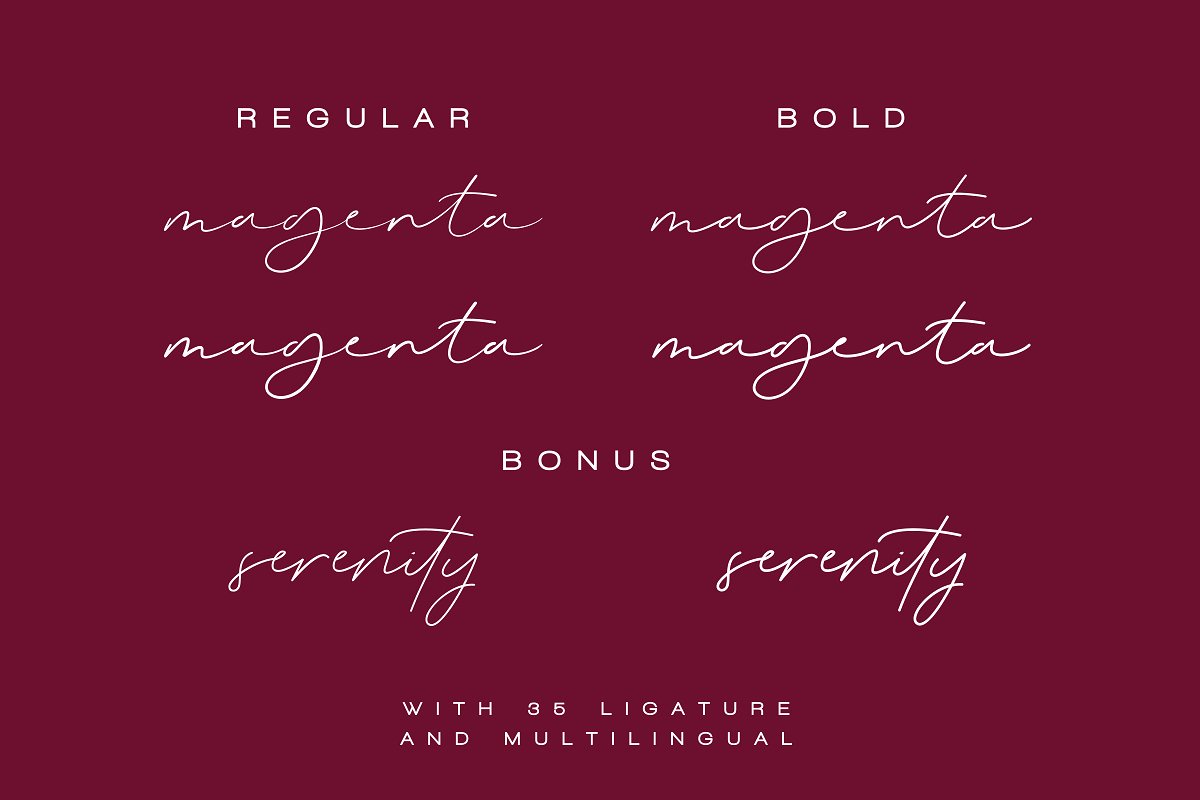
Magenta Signature Font
Magenta Signature Demo Font
The font design looks simple without losing its elegance and warmness. The function of the font is to show that you have a modern spirit to serve high-quality products and services. Introducing Magenta Font. A new signature script typeface by dharmas. Magenta Signature Font – luxurious and carefree signature script font that was lovingly created by hand. This font is perfect addition to the professional designers font.
Magenta has 2 version, signature and monoline script, It’s perfect fit for signature logos, printed quotes, blog , social media headers, product packaging and a lot more